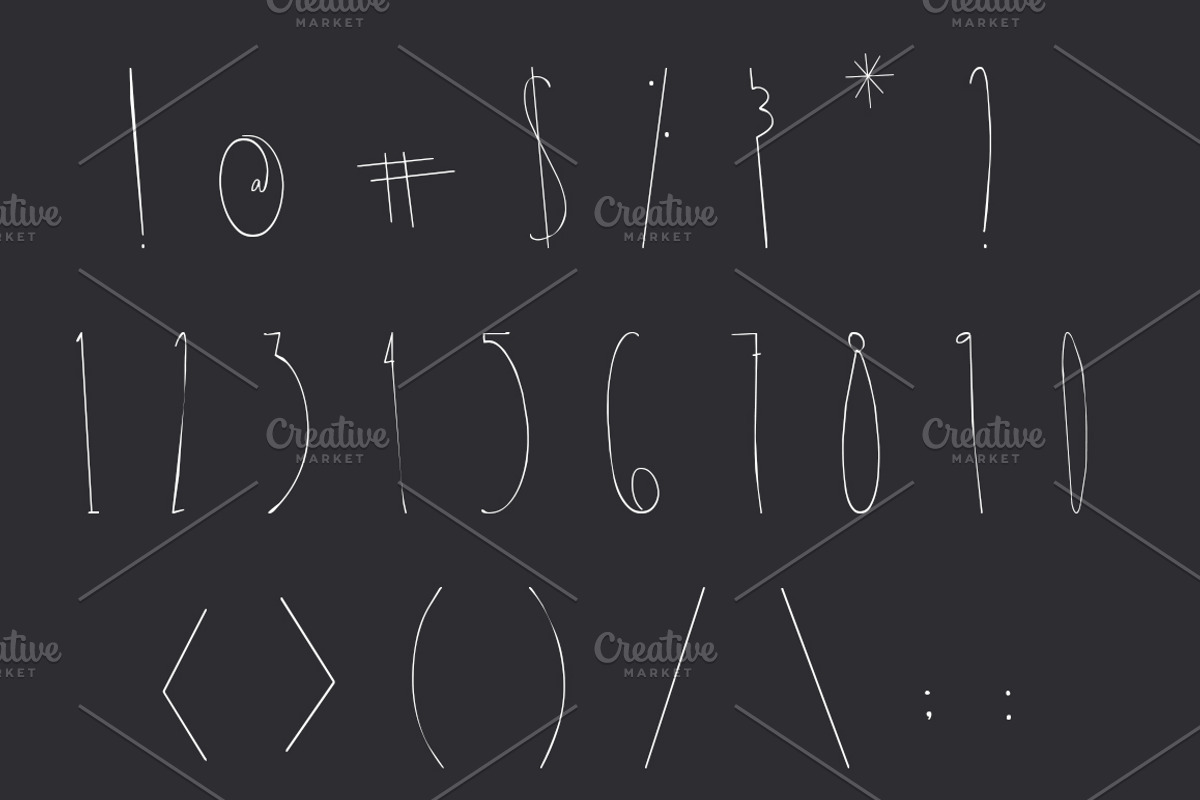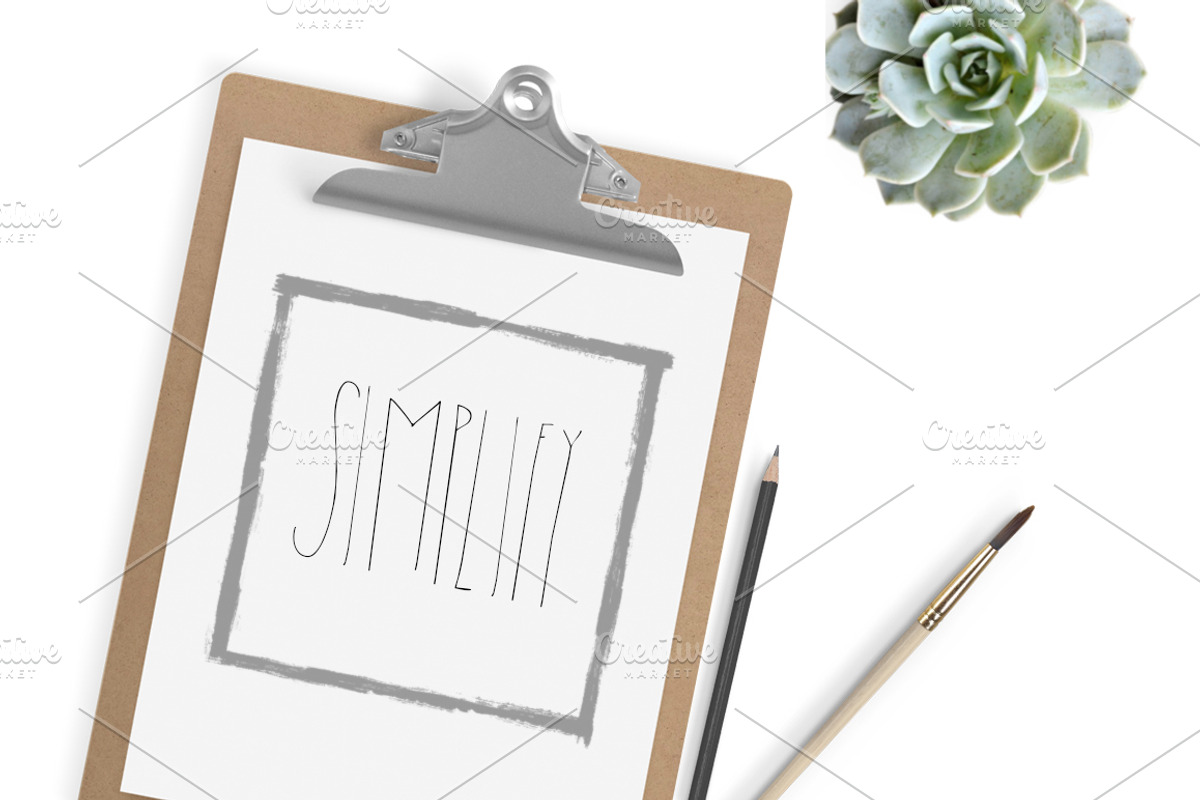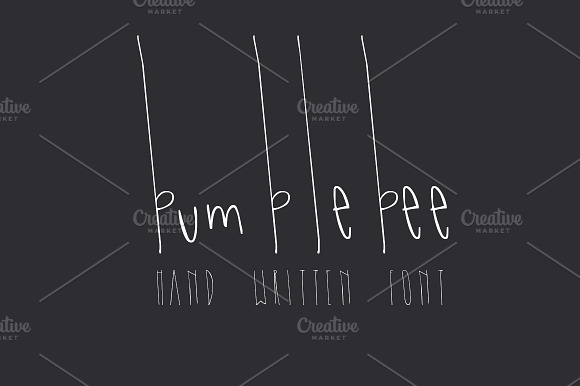
BUMBLEBEE Skinny Hand Written Font
Bumblebee is a uniquely simple hand-written sans serif font. Bumblebee is dainty and pretty, reliable and solid. With lower case and upper case type face, this font is perfect for any setting! Contains full alphabet, numbers, and symbols.
- Contains full alphabet, numbers, and symbols.